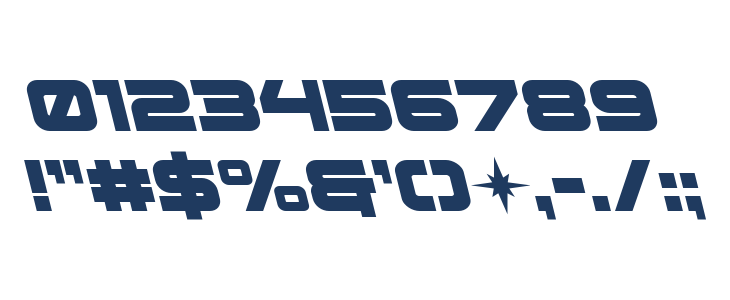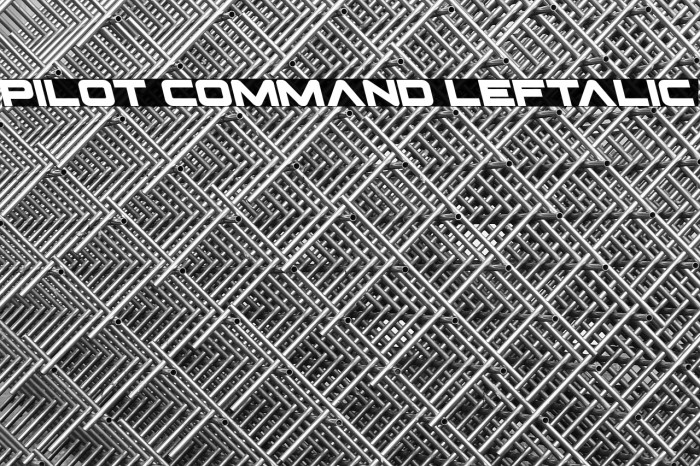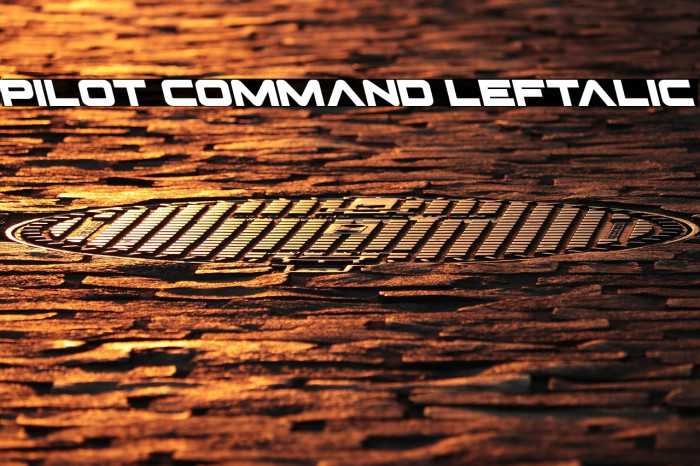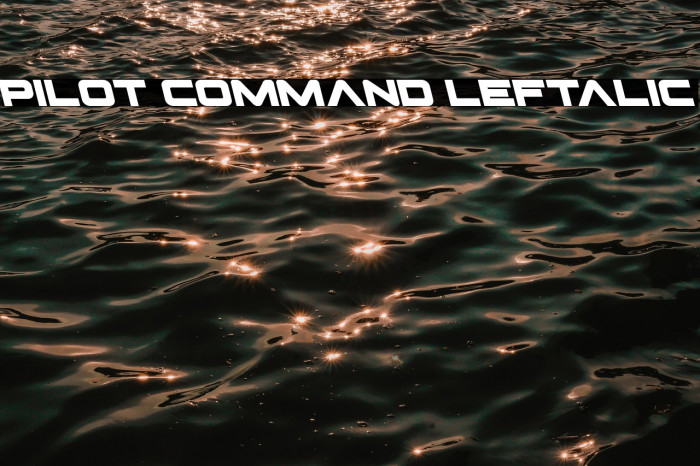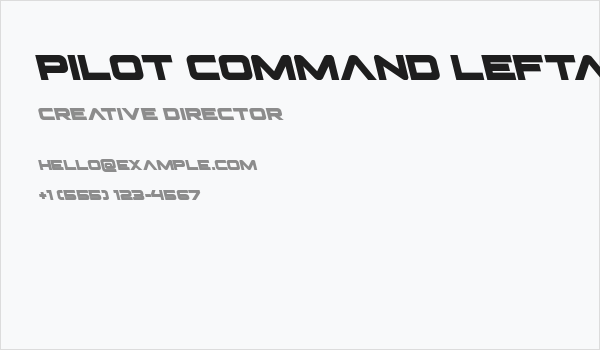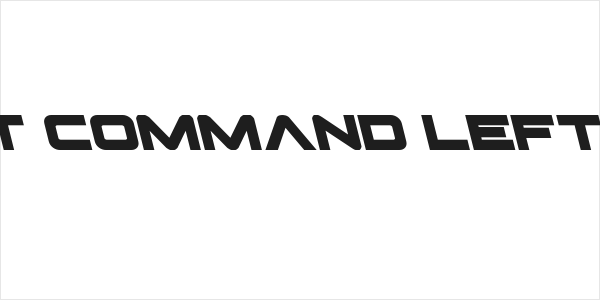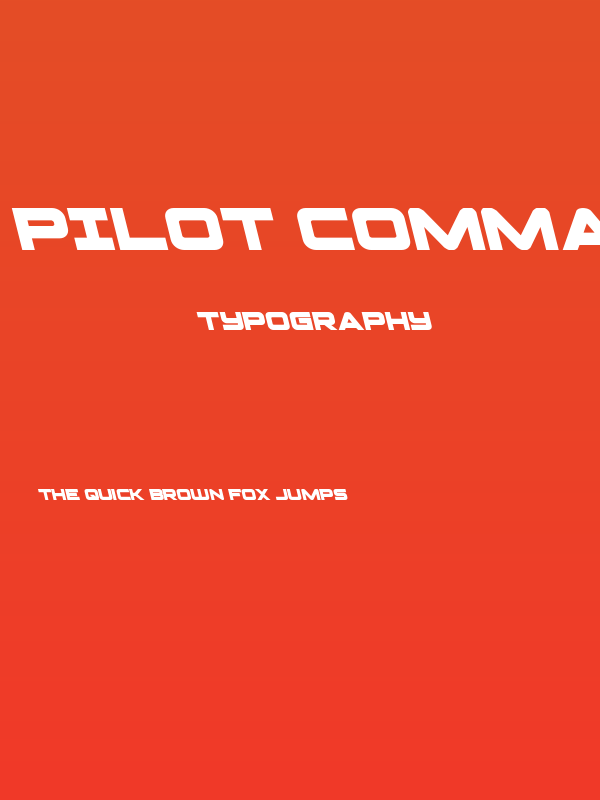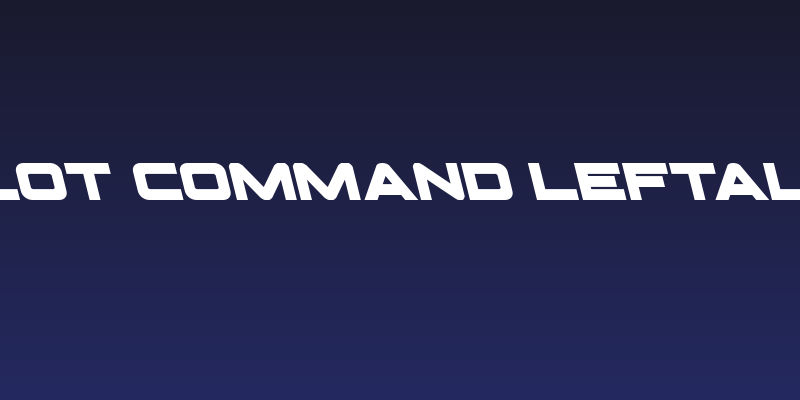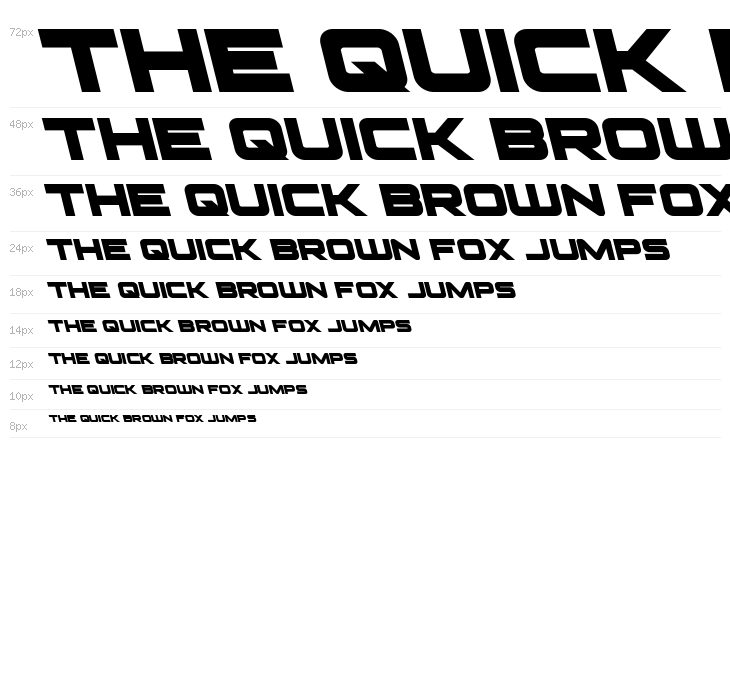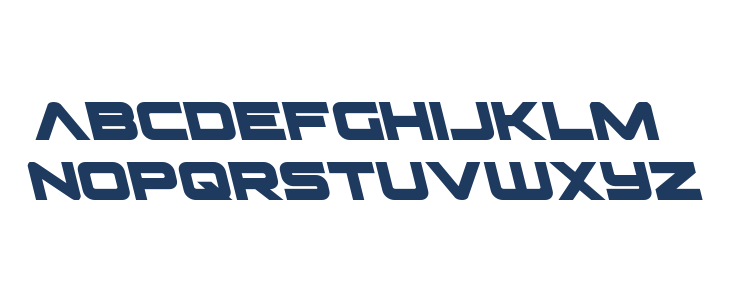
Pilot Command Leftalic Font
Pilot Command Leftalic Description
This font features a bold, futuristic design with a distinct slant to the left, giving it a dynamic and forward-moving appearance. The characters are wide and have a strong presence, making them ideal for attention-grabbing headlines or titles. The angular cuts and geometric shapes contribute to its modern and tech-inspired aesthetic. The numbers and special characters maintain the same bold and angular style, ensuring consistency across all elements. This font is particularly suitable for projects that require a contemporary and edgy look.
| Proposed Projects | Ideal for technology branding, sci-fi movie posters, video game titles, and modern advertising campaigns. |